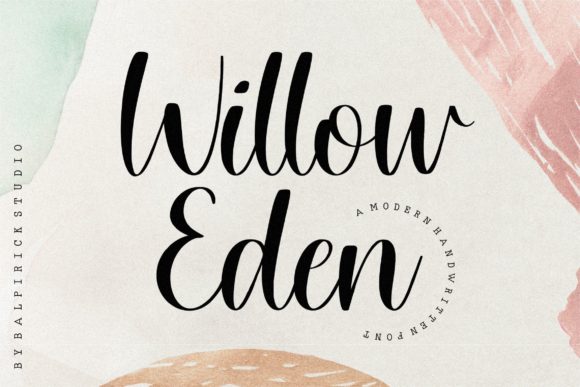
In a world where visual aesthetics reign supreme, Willow Eden Font emerges as a captivating script, enchanting the hearts of those seeking elegance and charm. This meticulously crafted font, conjured by the creative genius of Balpirick, is not just a collection of letters, but an artistic expression that elevates your designs to new heights.
Willow Eden, with its graceful strokes and delicate curves, is a testament to the power of typography. Its inherent versatility makes it the perfect choice for a myriad of creative endeavors, whether you're crafting heartfelt wedding invitations, designing captivating social media posts, or adding a touch of sophistication to your DIY projects.
Imagine the allure of your wedding signage, adorned with the enchanting letters of Willow Eden. Each word, meticulously penned in this elegant script, will whisper promises of love and joy, captivating the hearts of your guests. Your Instagram feed will transform into a visual symphony, as the captivating characters of Willow Eden lend an air of refinement to your every post, making your content shine brighter than ever before.
But the magic of Willow Eden extends far beyond the digital realm. Unleash your creativity with DIY projects that exude elegance and charm. From personalized greeting cards that convey your heartfelt sentiments to stunning home décor that reflects your unique style, Willow Eden becomes your artistic muse, transforming ordinary moments into extraordinary expressions.
With Willow Eden, you're not just downloading a font; you're embarking on a creative journey, where imagination knows no bounds. Its enchanting allure will captivate your audience, leaving them spellbound by the beauty of your designs. Embrace the magic of Willow Eden today and let your creativity soar to new heights!